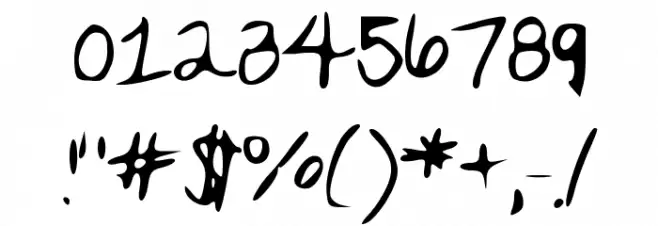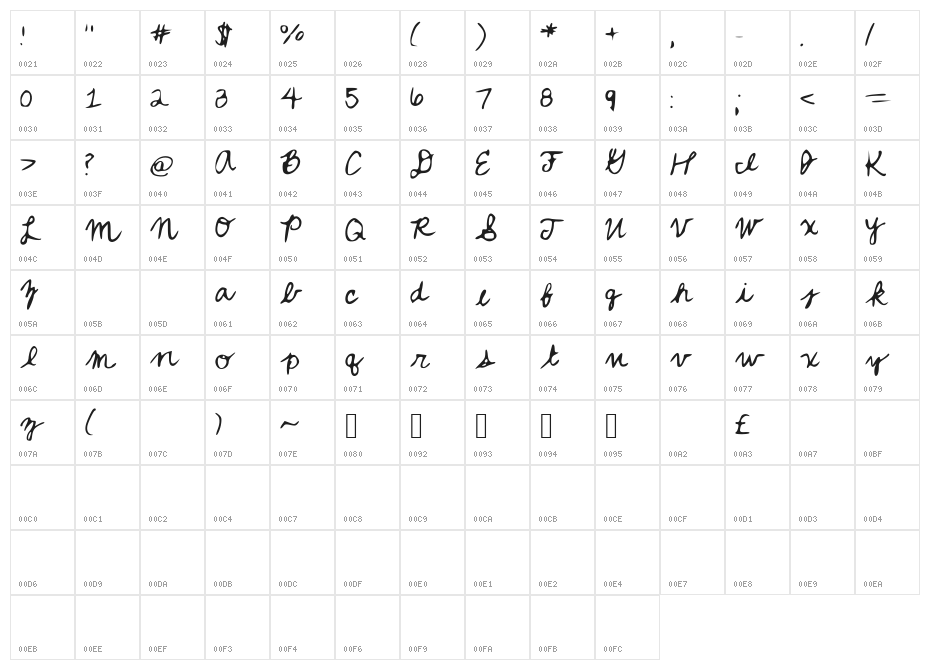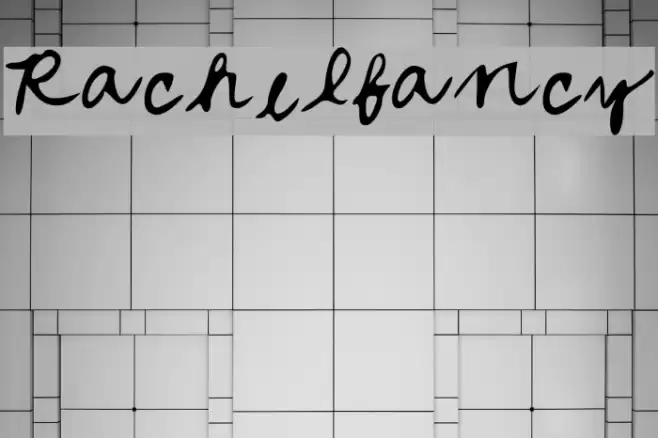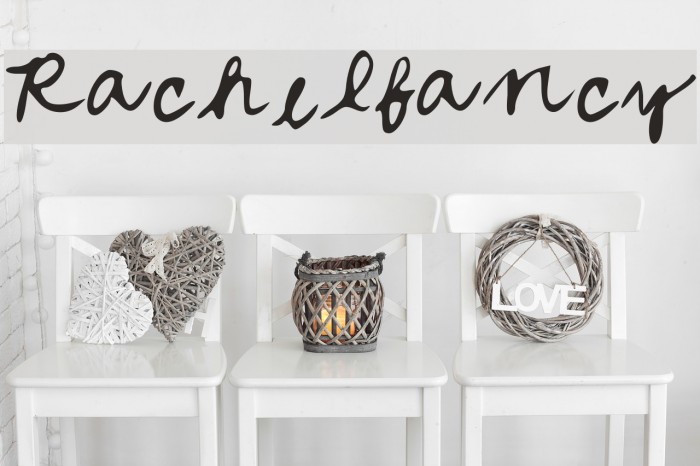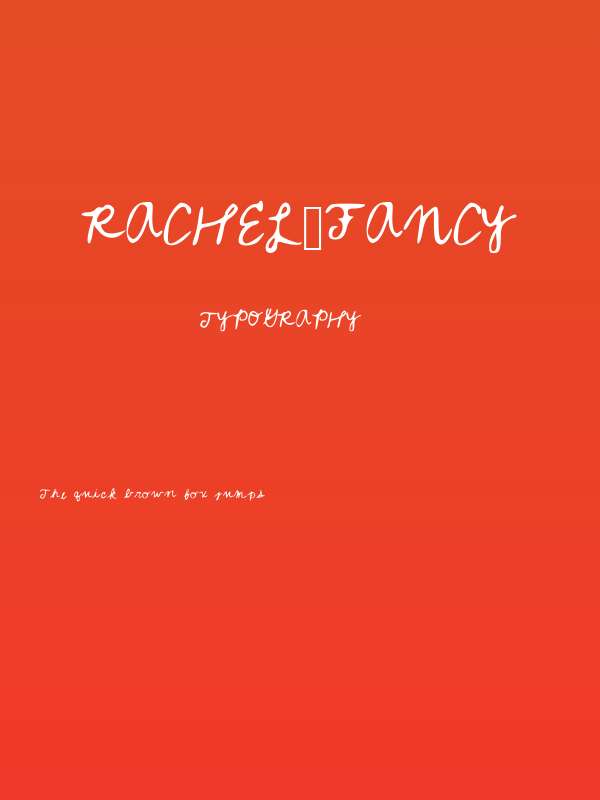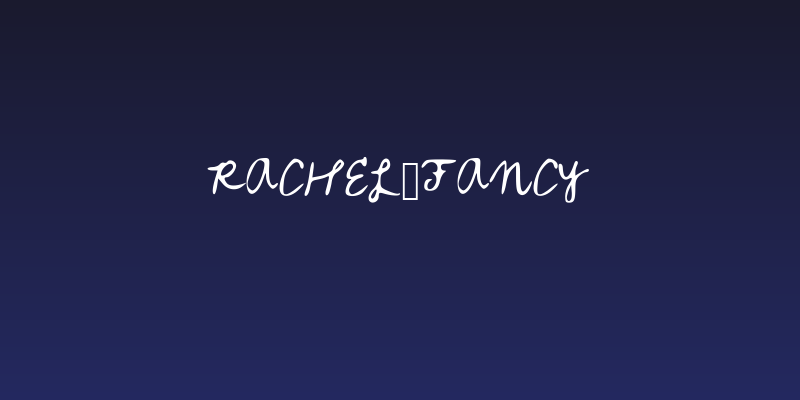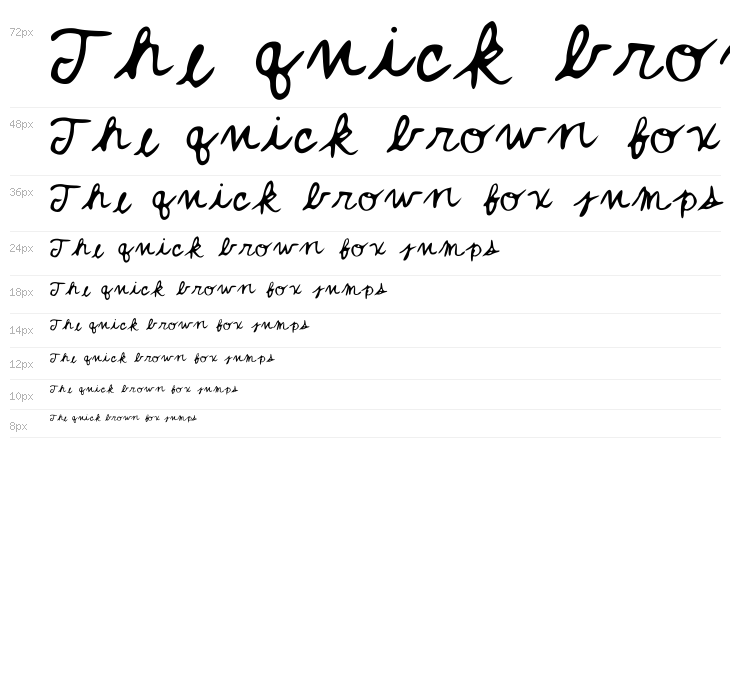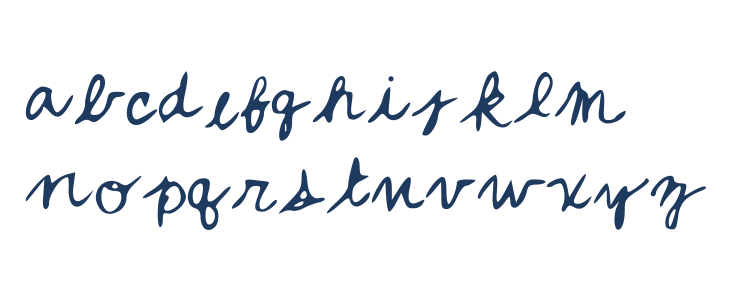
Rachel_fancy Font
Rachel_fancy Description
This font exhibits a playful and artistic handwritten style, characterized by its fluid and cursive strokes. The letters are connected in a way that mimics natural handwriting, giving it a personal and informal feel. The uppercase letters are bold and expressive, while the lowercase letters maintain a consistent flow. Numbers and special characters are crafted with the same whimsical touch, ensuring uniformity across all glyphs. The overall appearance is dynamic and lively, making it suitable for creative projects that require a personal touch.
| Proposed Projects | Ideal for greeting cards, invitations, personal branding, and creative projects that require a personal touch. |